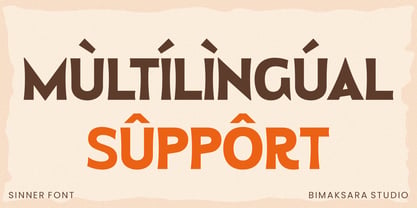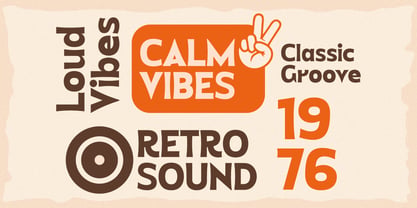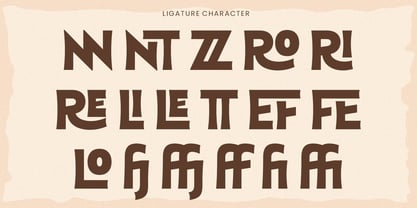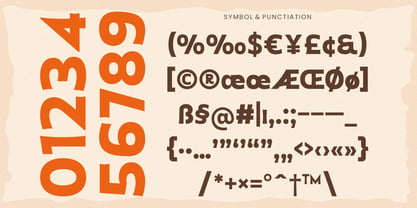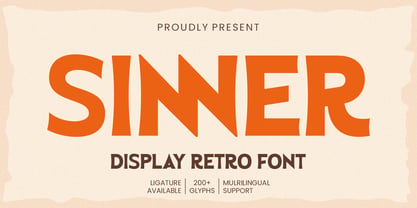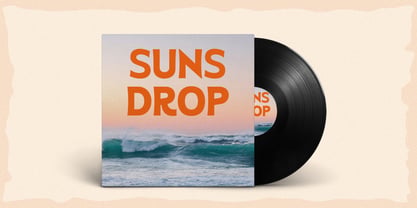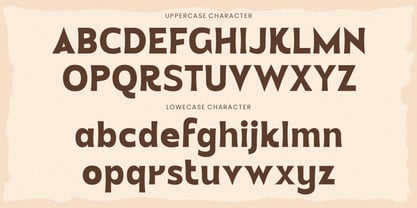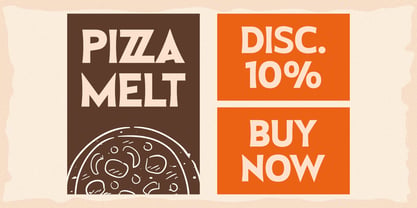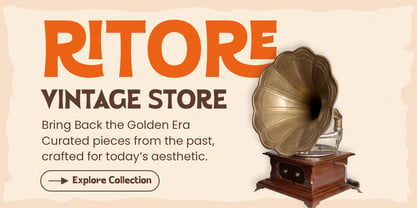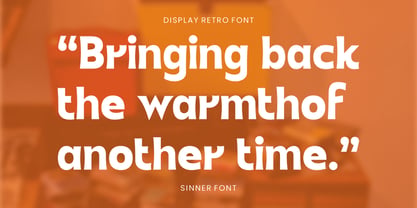
Sinner
Sinner is a bold retro display font that blends nostalgic character with a fresh, modern attitude. Its strong shapes, playful curves, and distinctive letterforms create an expressive look that instantly draws attention.
Designed to make every word stand out, Sinner brings a confident vintage personality without sacrificing readability. The included ligatures add unique combinations and give your typography a more natural, custom-made appearance.
Features:
• Uppercase and lowercase letters
• Numerals and punctuation
• Unique ligatures
• 200+ glyphs
• Multilingual support
Perfect for:
Logos, branding, packaging, posters, editorial headlines, apparel, food and beverage designs, social media graphics, retro-themed projects, and other creative displays.
Give your project a bold nostalgic voice with Sinner.